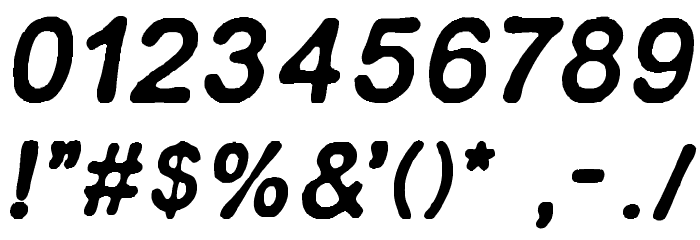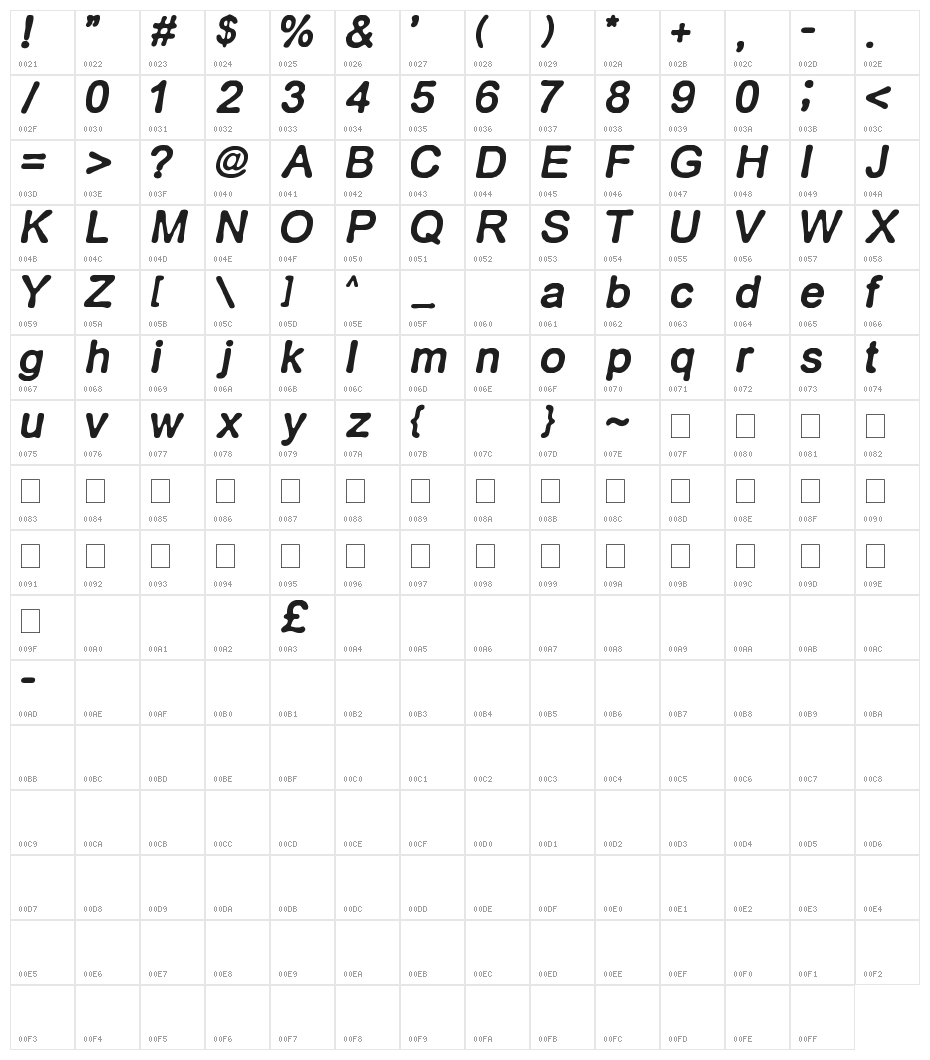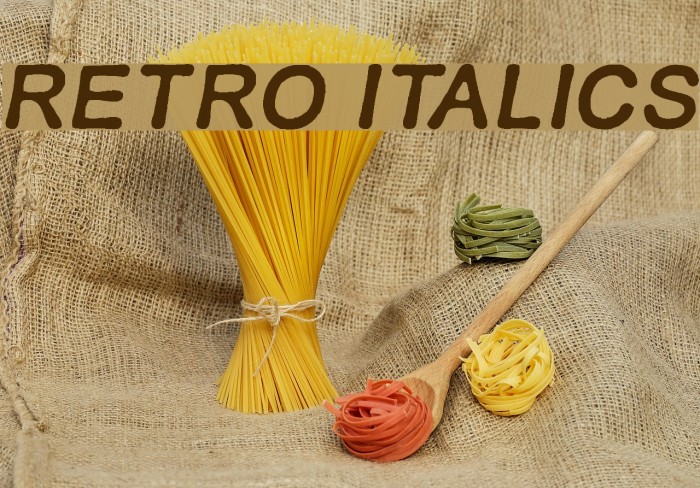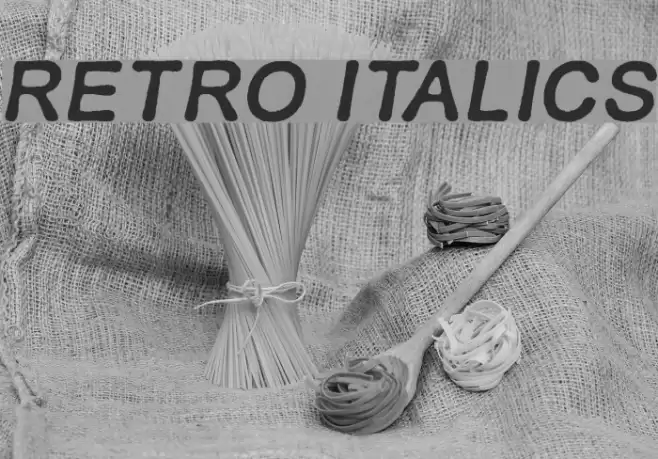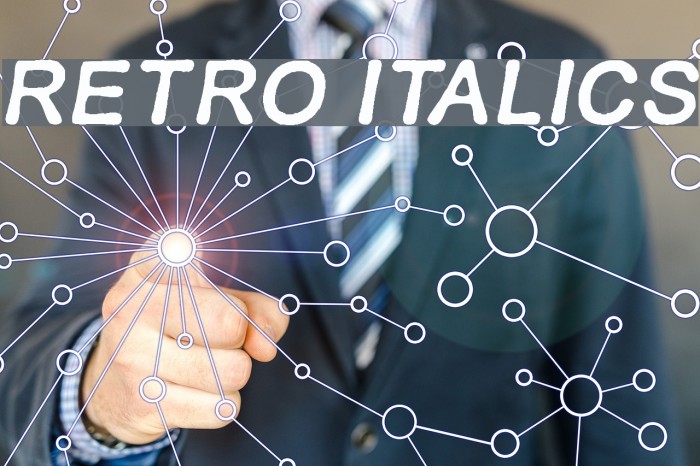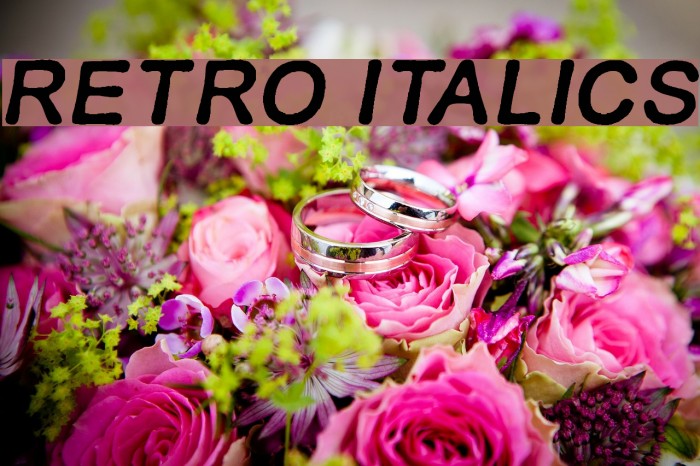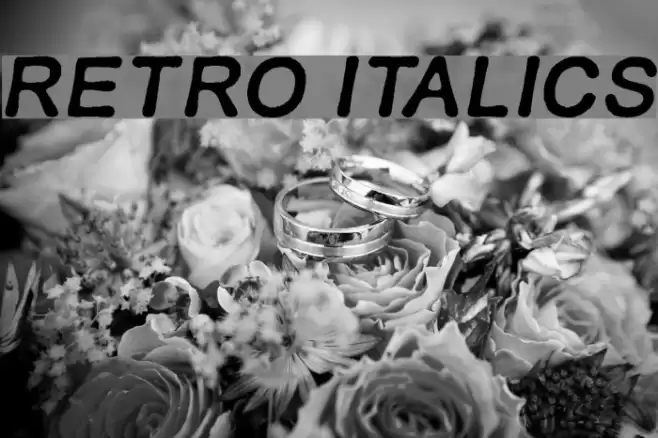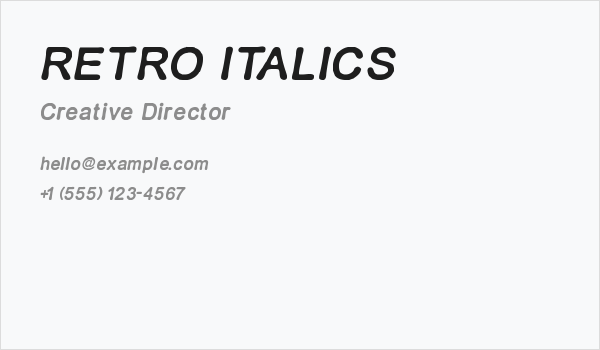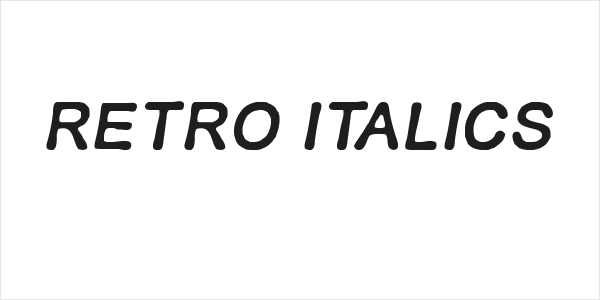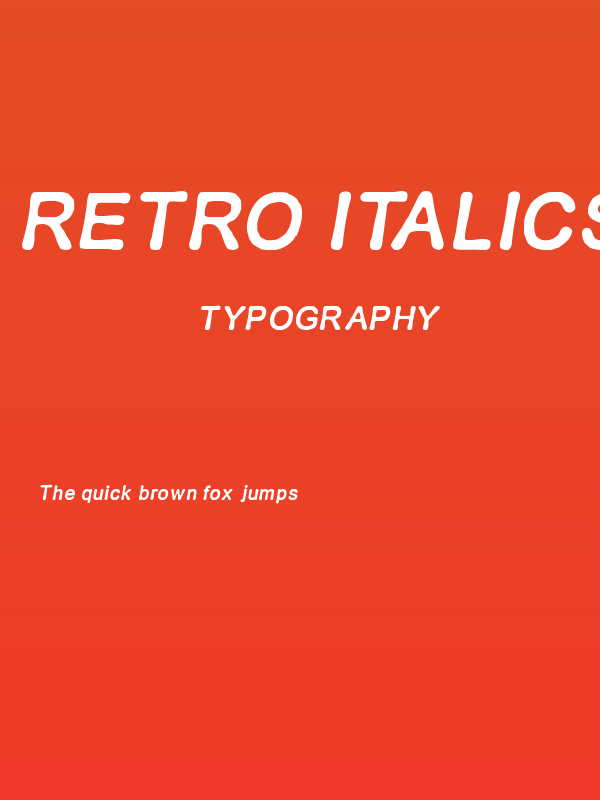
RETRO ITALICS Font
RETRO ITALICS Description
This font exudes a nostalgic charm with its italicized and slightly bold appearance, reminiscent of vintage signage and retro advertisements. The characters are well-defined with a smooth, flowing style that adds a sense of movement and dynamism. Uppercase and lowercase letters maintain a consistent slant, enhancing the cohesive look. The numerals are bold and clear, making them easily readable. Special characters are included, providing versatility for various design needs. The overall aesthetic is playful yet sophisticated, making it suitable for projects that aim to evoke a sense of nostalgia or classic appeal.
| Overall Style | Retro |
| Proposed Projects | Ideal for vintage-themed posters, retro branding, nostalgic advertisements, and creative packaging designs. |